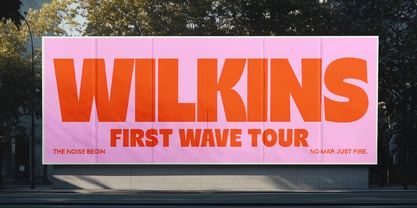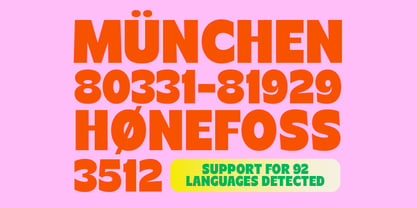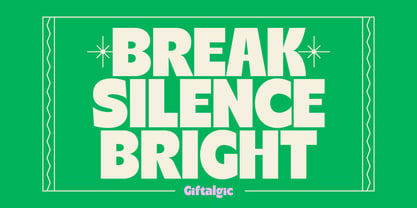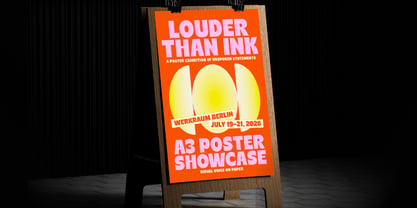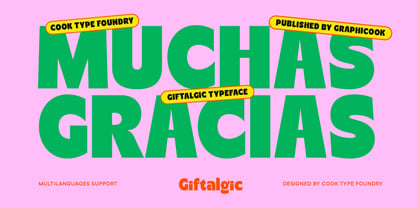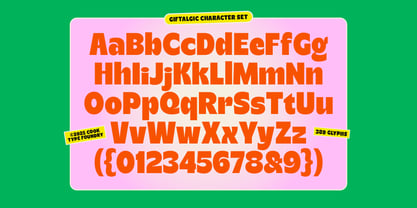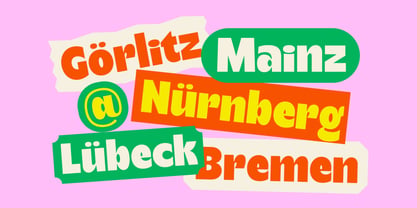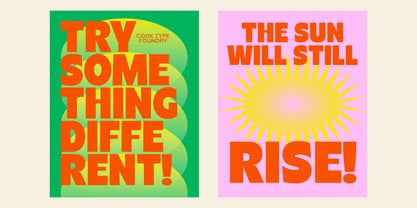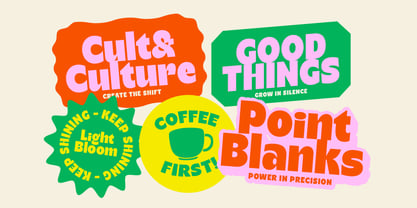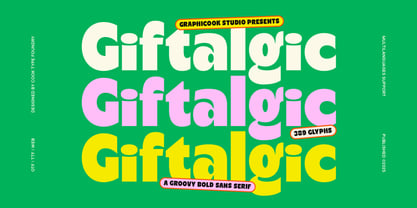
Cook Giftalgic
by Graphicook Studio
The Cook Giftalgic Font Family was designed by Gumilar Febriansyah and published by Graphicook Studio. Cook Giftalgic contains 1 styles. More about this family
Giftalgic is a bold font that blends a classic 70s vibe with a touch of modern design. It’s perfect for posters, logos, and branding that aim to feel playful and nostalgic, yet fresh and contemporary. It is perfect for headlines, logotypes, magazines, packaging, quotes, movies, games, cover albums, book covers, and flyers, it's a perfect solution for creating eye-catching designs that stand out in any context.
Designers: Gumilar Febriansyah
Foundry: Graphicook Studio